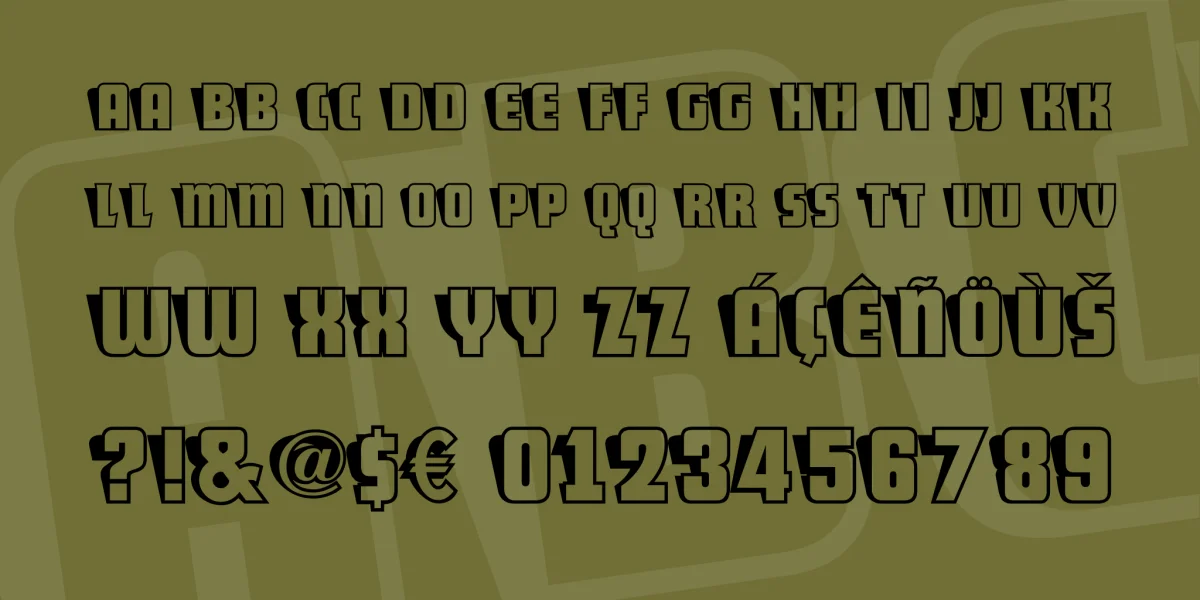
Inspired by handlettered posters from a bygone era, this font is an adaptation of an old standard from the 30’s called Futura Display. Great for drops caps and large headlines of limited length.